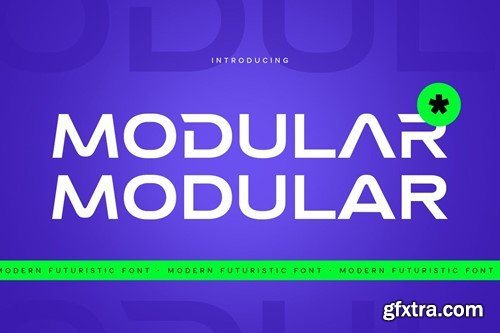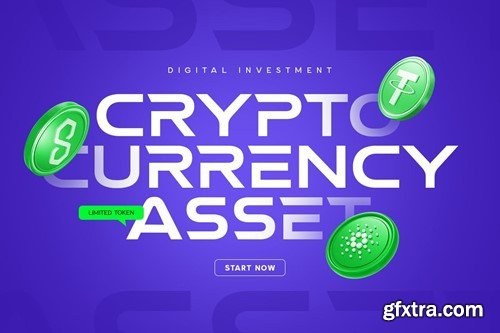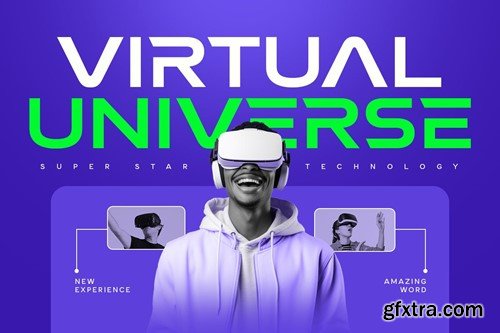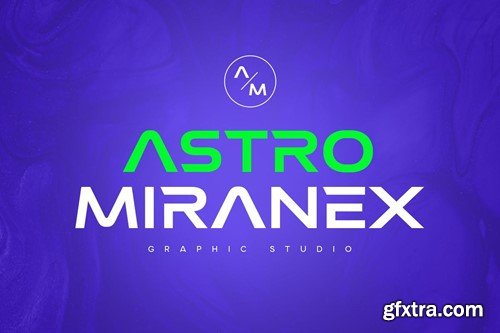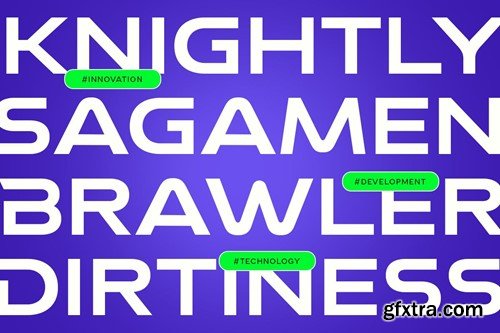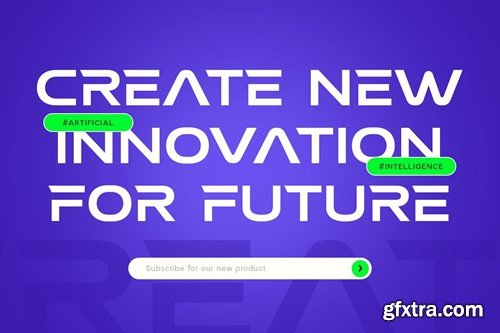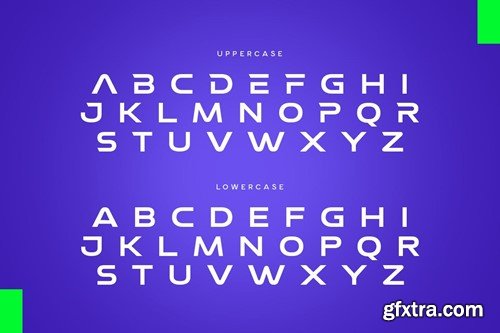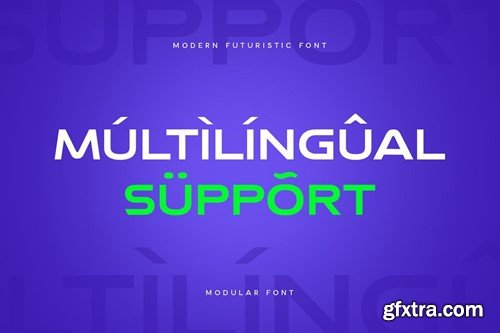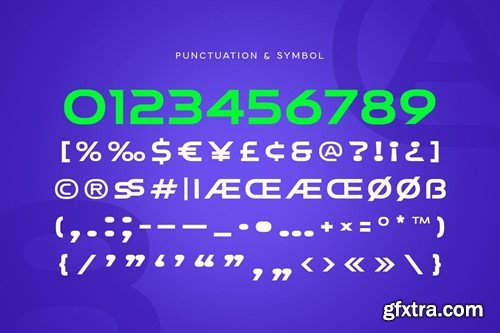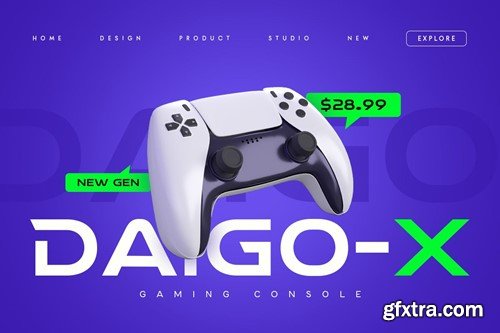
Modular - Modern Futuristic Font Sci-fi Website MH97YR8
Modular - Modern Futuristic Font Sci-fi Website
Modular is a Modern Futuristic Sci-fi Font that created special for Sci-fi, Modern, Technology and more stand out typography needs, with extra outline styles that make your design more Futuristic. It's so perfect to add your style and headline overview for Cryptocurrency, technology, film, and Sci-fi theme. And specially for this font, we crafted modern style and technology feels so enjoy to create any project that will show your main idea out.
Modular Modern Futuristic Sci-fi Font ready with:
• Unique Sci-fi characters prepared to get creative alternatives in Futuristic theme
• Ready with Technology characters